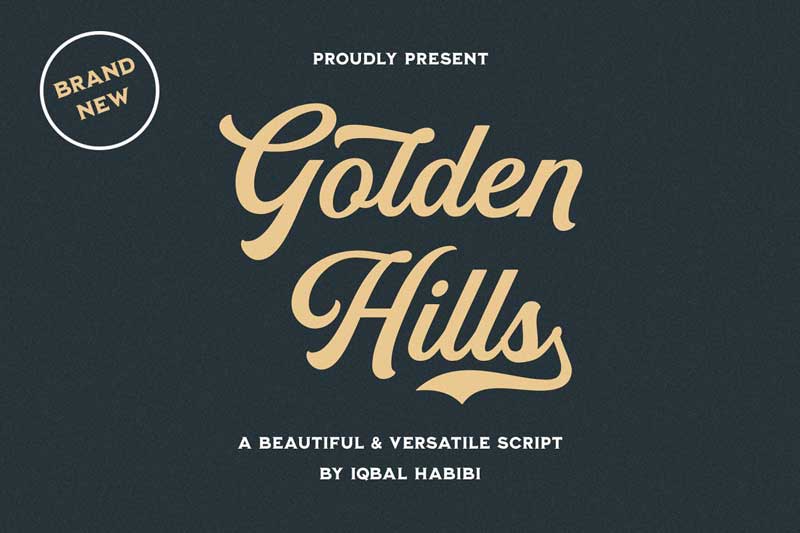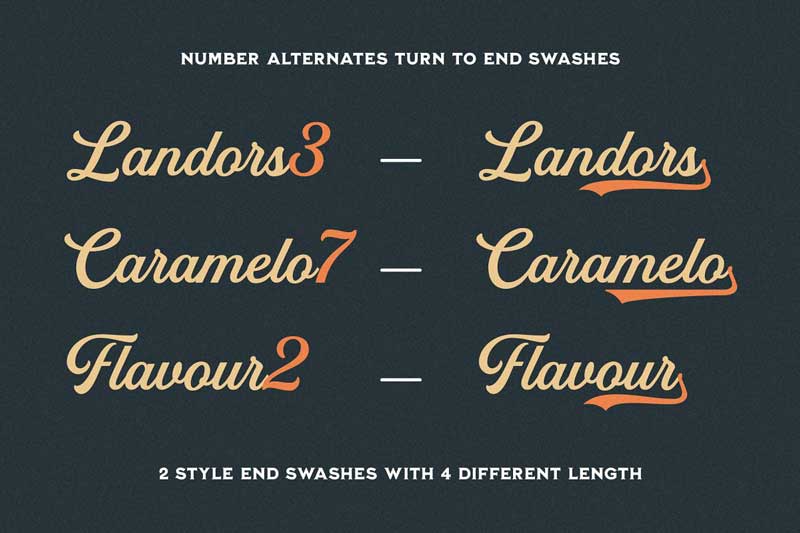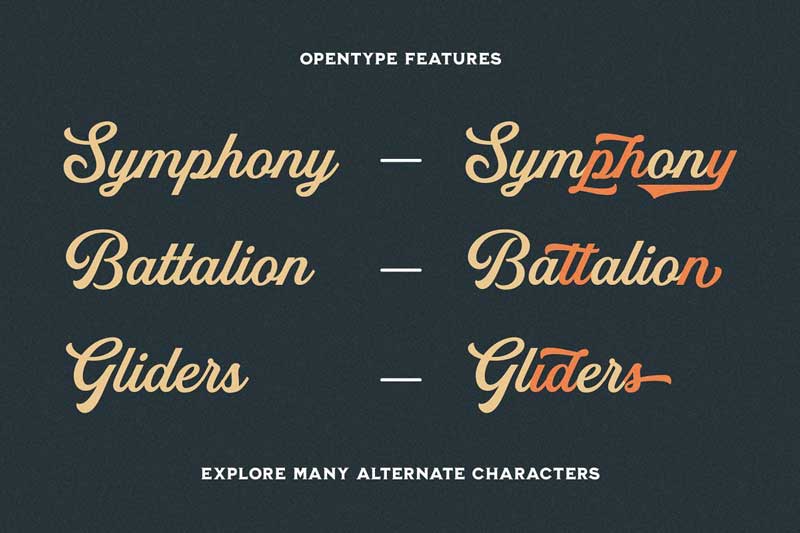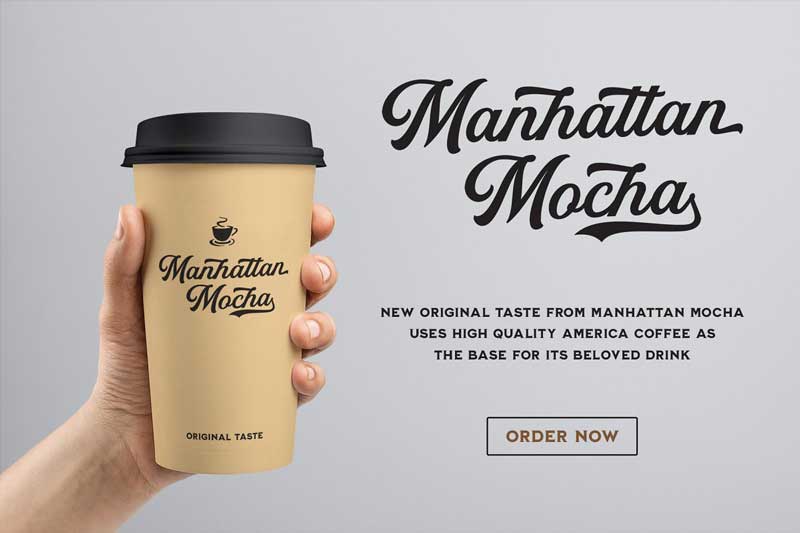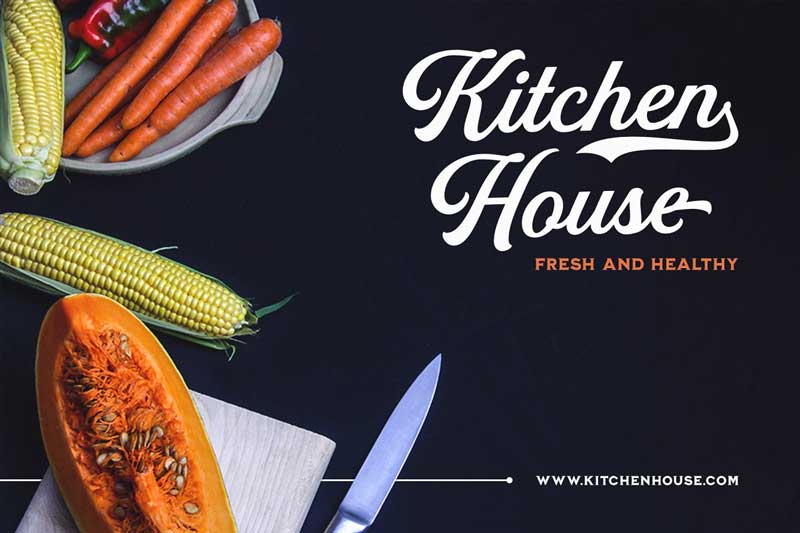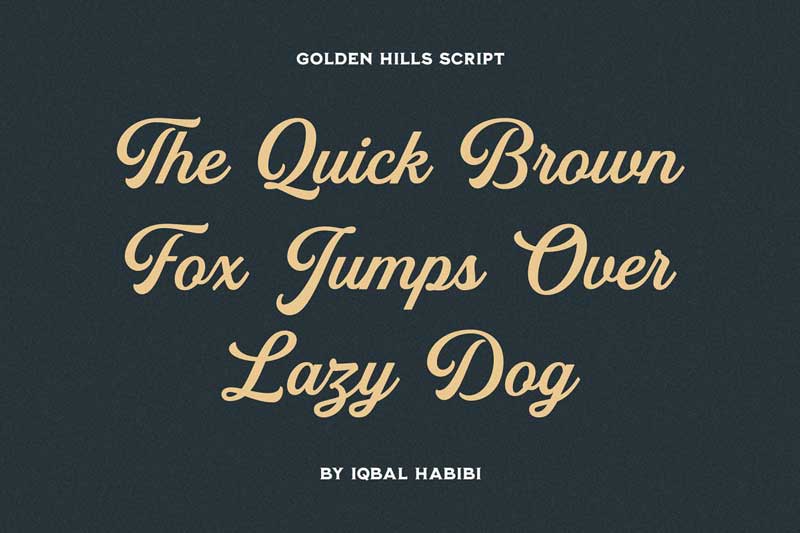
Golden Hills – Script Font 4005026
Golden Hills Script Font 4005026
Golden Hills - Script Font 4005026
About Golden Hills Font
Golden Hills is a beautiful script inspired by hand lettering works. Golden Hills has many alternative characters, also come with 2 style end swashes with 4 different length and ligatures. Great for creating lettering works, logotype, t-shirt design, packaging design, signboard, poster, and many more. Golden Hills will give your design works more stylish and artistic.
Golden Hills features :
• Alternates and Ligatures
• Number, Punctuation, and Symbols
• Accented Character (ÁÂÄÀÅÃÆÇÐÉÊËÈÍÎÏÌÑÓÔÖÒØÕŒÚÛÜÙẀŴẄẂÝŶŸỲáâäàåãæçđéêëèíîïìñóôöòøõœúûüùẃŵẅẁýŷÿỳ)